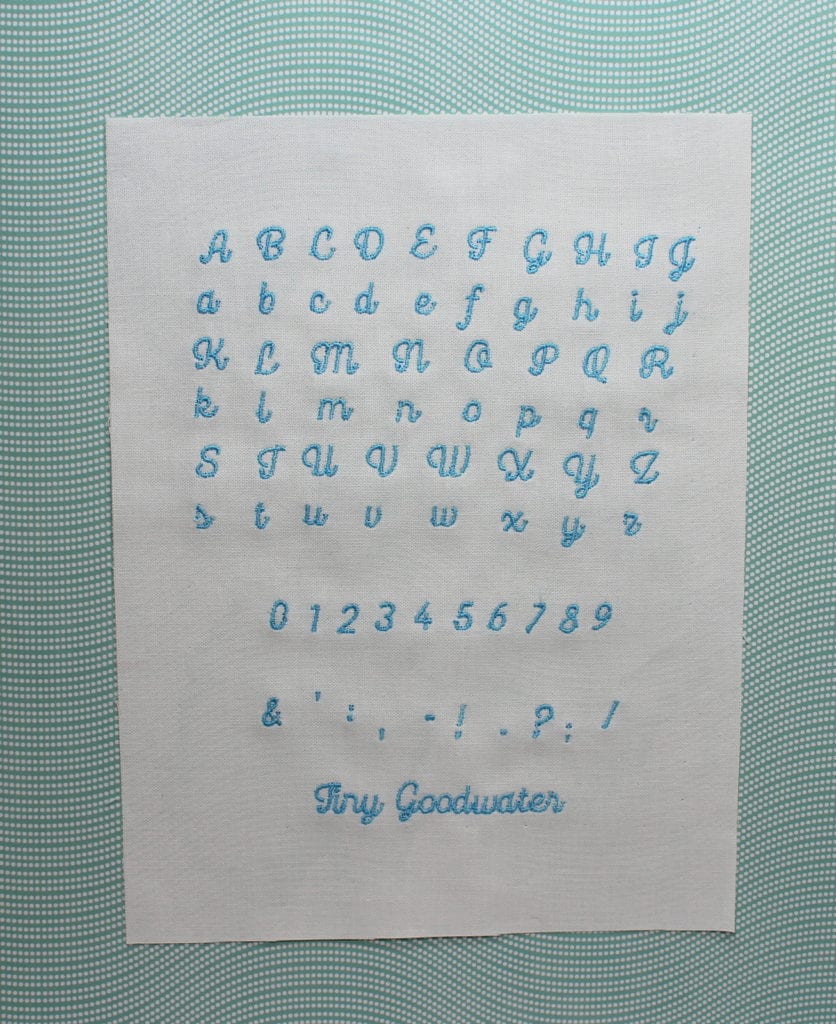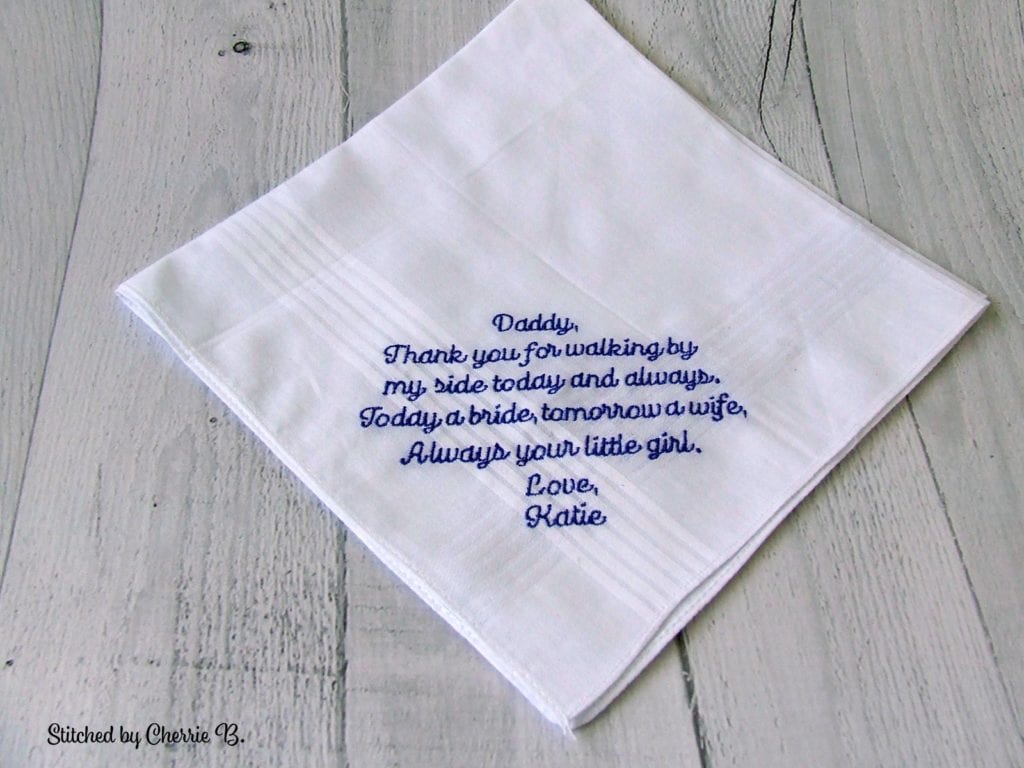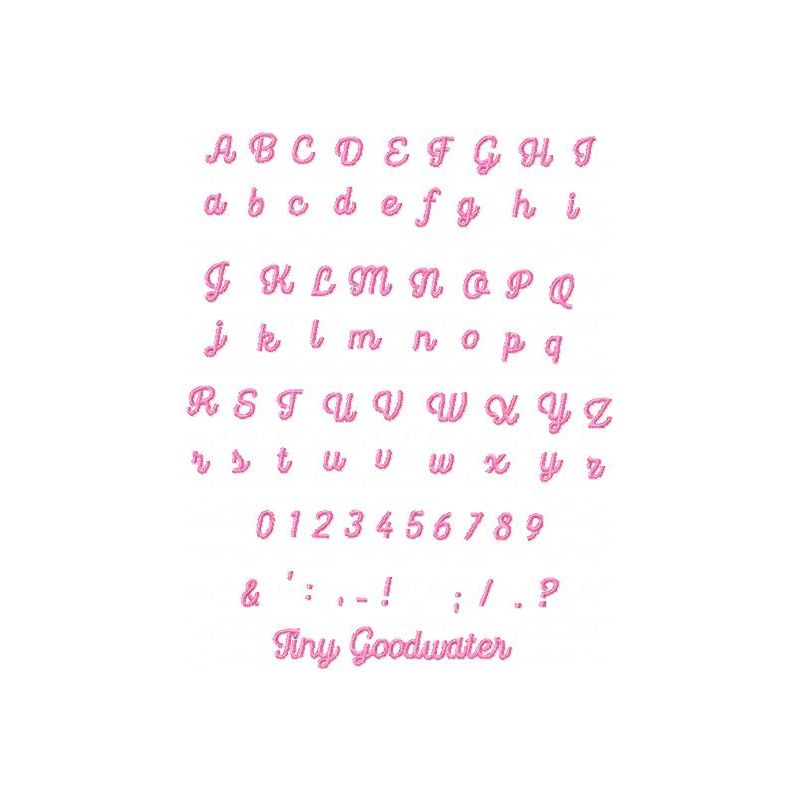
Tiny Goodwater Font
Description
This very small font was entirely digitized manually to ensure perfect start and ending of each letter. Each letter starts on the left and ends on the right. For optimal stitchout, this font should be stitched with a 65/9 or 60/8 needle and with 60 wt thread. Despite its smallness, the font is very readable. Tips on how to stitch perfect small lettering are part of your download. Great for heirloom stitching or for wedding hankies.
Size & Stitch Counts
Capital letter A 0.31×0.30″ (7.86×7.50 mm)
128 stitches
Lower case a 0.22×0.22″ (5.50×5.56 mm)
98 stitches